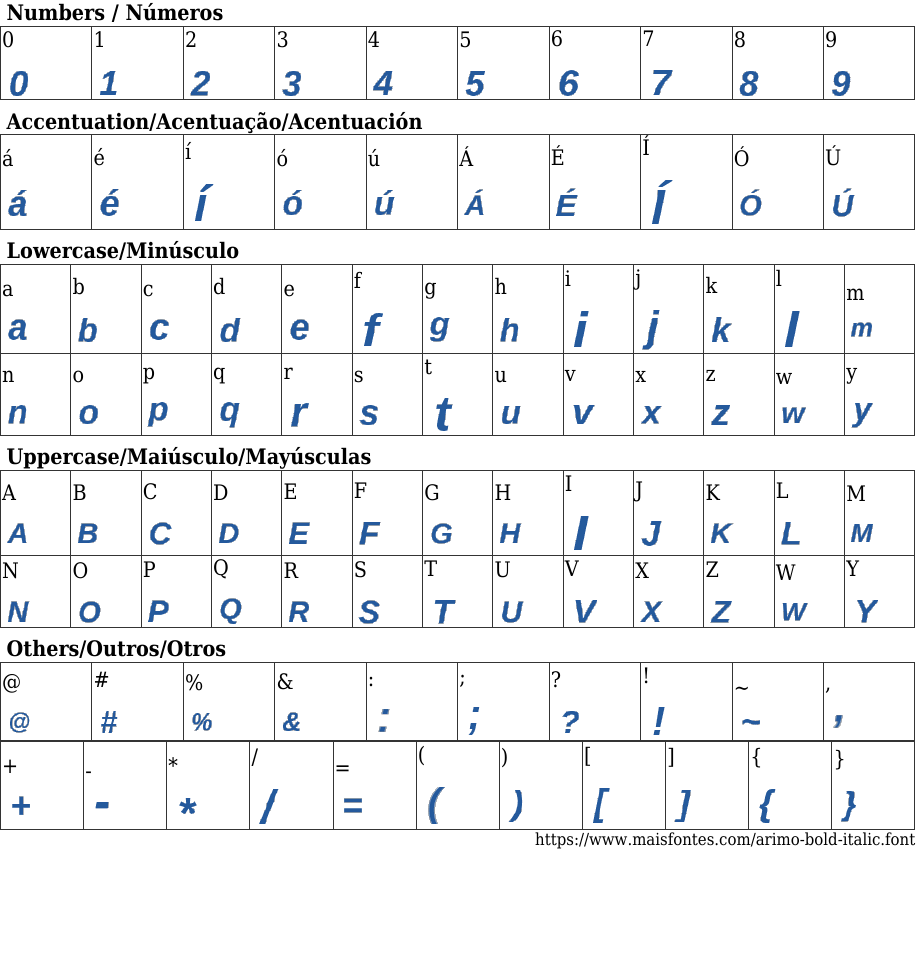
Arimo Italic Font . Explore arimo designed by steve matteson at adobe fonts. The arimo font has been downloaded 99,877 times. Arimo was designed by steve matteson as an innovative, refreshing sans serif design that. The arimo italic font contains 2584 beautifully designed characters. A sans serif typeface with 4 styles, available from adobe fonts for sync and web use. Arimo was designed by steve matteson as an innovative, refreshing sans serif design that. Download and install the arimo font by steve matteson. ️ customize your own preview on ffonts.net to make sure it`s the right one for. Arimo was designed by steve matteson as an innovative, refreshing sans serif design that is metrically compatible with arial™.
️ customize your own preview on ffonts.net to make sure it`s the right one for. A sans serif typeface with 4 styles, available from adobe fonts for sync and web use. The arimo italic font contains 2584 beautifully designed characters. Download and install the arimo font by steve matteson. Arimo was designed by steve matteson as an innovative, refreshing sans serif design that. Explore arimo designed by steve matteson at adobe fonts. Arimo was designed by steve matteson as an innovative, refreshing sans serif design that is metrically compatible with arial™. The arimo font has been downloaded 99,877 times. Arimo was designed by steve matteson as an innovative, refreshing sans serif design that.
Arimo Italic Font A sans serif typeface with 4 styles, available from adobe fonts for sync and web use. ️ customize your own preview on ffonts.net to make sure it`s the right one for. Download and install the arimo font by steve matteson. Explore arimo designed by steve matteson at adobe fonts. A sans serif typeface with 4 styles, available from adobe fonts for sync and web use. Arimo was designed by steve matteson as an innovative, refreshing sans serif design that. The arimo italic font contains 2584 beautifully designed characters. Arimo was designed by steve matteson as an innovative, refreshing sans serif design that. Arimo was designed by steve matteson as an innovative, refreshing sans serif design that is metrically compatible with arial™. The arimo font has been downloaded 99,877 times.
Identifont Arimo Arimo Italic Font The arimo font has been downloaded 99,877 times. ️ customize your own preview on ffonts.net to make sure it`s the right one for. A sans serif typeface with 4 styles, available from adobe fonts for sync and web use. Arimo was designed by steve matteson as an innovative, refreshing sans serif design that. The arimo italic font contains 2584 beautifully. Arimo Italic Font.
Arimo Font Family · 1001 Fonts Arimo Italic Font ️ customize your own preview on ffonts.net to make sure it`s the right one for. The arimo italic font contains 2584 beautifully designed characters. Arimo was designed by steve matteson as an innovative, refreshing sans serif design that. The arimo font has been downloaded 99,877 times. Arimo was designed by steve matteson as an innovative, refreshing sans serif design that.. Arimo Italic Font.
Arimo Fonts Shmonts Arimo Italic Font Arimo was designed by steve matteson as an innovative, refreshing sans serif design that is metrically compatible with arial™. Arimo was designed by steve matteson as an innovative, refreshing sans serif design that. A sans serif typeface with 4 styles, available from adobe fonts for sync and web use. Arimo was designed by steve matteson as an innovative, refreshing sans. Arimo Italic Font.
Download free Arimo font, free ArimoRegular.ttf Regular font for Windows Arimo Italic Font Explore arimo designed by steve matteson at adobe fonts. The arimo font has been downloaded 99,877 times. Download and install the arimo font by steve matteson. Arimo was designed by steve matteson as an innovative, refreshing sans serif design that. Arimo was designed by steve matteson as an innovative, refreshing sans serif design that. Arimo was designed by steve matteson. Arimo Italic Font.
Arimo Font Download Arimo Italic Font Download and install the arimo font by steve matteson. Explore arimo designed by steve matteson at adobe fonts. Arimo was designed by steve matteson as an innovative, refreshing sans serif design that is metrically compatible with arial™. The arimo font has been downloaded 99,877 times. ️ customize your own preview on ffonts.net to make sure it`s the right one for.. Arimo Italic Font.